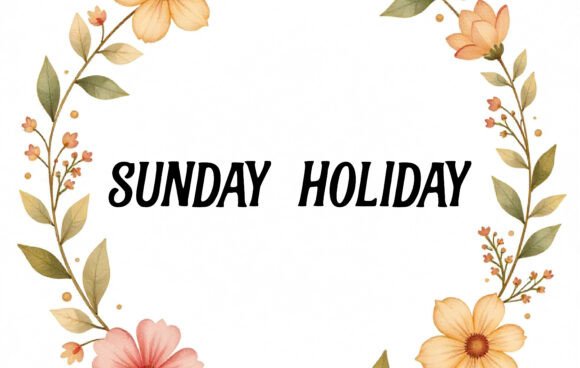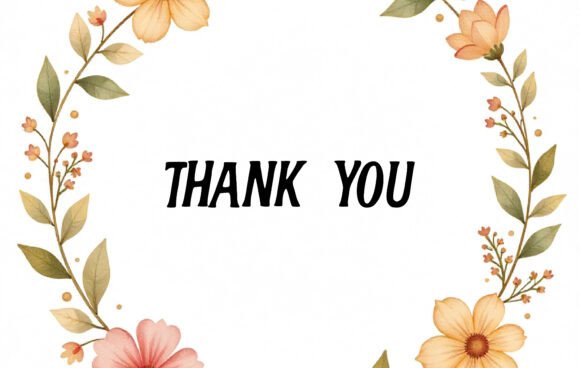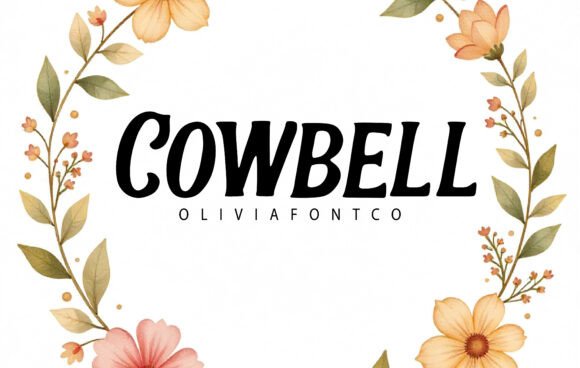
Cowbell Font: Where Vintage Flair Meets Modern Elegance
In the world of typography, fonts play a crucial role in conveying the tone and personality of a brand or design. For designers and crafters looking to make a statement, Cowbell Font is an excellent choice. This bold and stylish retro serif display font seamlessly blends vintage flair with a modern twist, making it perfect for a wide range of design applications.
The Unique Characteristics of Cowbell Font
Cowbell Font boasts thick, curvy letterforms and high contrast strokes, giving it a strong, confident presence while maintaining a soft, friendly feel. The font’s bold and stylish appearance commands attention without being too loud, making it ideal for logos, headlines, packaging, social media graphics, and editorial design. The unique blend of vintage and modern elements sets Cowbell apart from other fonts, making it a versatile choice for designers.
Design Applications for Cowbell Font
Cowbell Font is suitable for a variety of design projects, including:
- Logos: Create a lasting impression with a bold and stylish logo that showcases your brand’s personality.
- Headlines: Grab attention with a font that exudes confidence and elegance.
- Packaging: Stand out on store shelves with eye-catching packaging that features Cowbell Font.
- Social Media Graphics: Elevate your social media presence with visually appealing graphics that showcase your brand’s unique personality.
- Editorial Design: Add a touch of sophistication to your editorial designs, such as magazines, newspapers, and books.
The Benefits of Using Cowbell Font
Cowbell Font offers several benefits for designers and crafters, including:
- Timeless Style: Cowbell Font’s unique blend of vintage and modern elements ensures that your designs will remain stylish for years to come.
- Personality: The font’s bold and playful personality shines through in every design, making it perfect for brands that want to stand out.
- Versatility: Cowbell Font can be used for a wide range of design applications, from branding and packaging to editorial design and social media graphics.
- Elegance: The font’s high contrast strokes and curvy letterforms add a touch of elegance to any design.
Who Can Benefit from Using Cowbell Font?
Cowbell Font is an excellent choice for:
- Graphic Designers: Looking for a unique and stylish font to elevate their designs.
- Crafters: Creating handmade products, such as wedding stationery, boutique designs, and product labels.
- Brands: Seeking to establish a strong visual identity with a bold and stylish font.
- Marketers: Looking for a font that can help their brand stand out in a crowded market.
In conclusion, Cowbell Font is a versatile and stylish font that can elevate any design project. Its unique blend of vintage flair and modern elegance makes it perfect for designers and crafters looking to make a statement. With its bold and playful personality, Cowbell Font is sure to bring charm, character, and a dash of bold elegance to any design. Step into timeless style with Cowbell Font — where vintage meets fresh design.